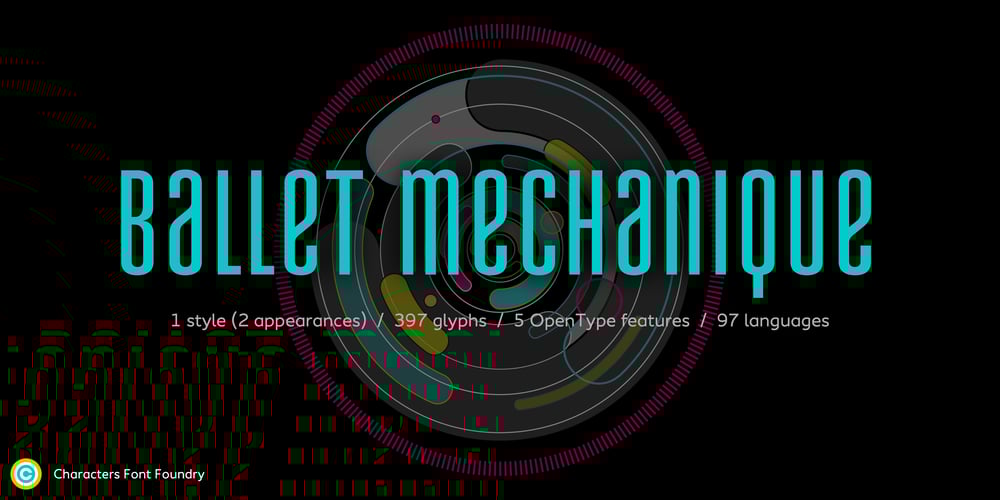
Ballet Mechanique Font Family was designed by René Verkaart and published by Characters Font Foundry. Ballet Mechanique contains 1 styles and family package options. Ballet Mechanique is a custom designed font for musician Jeroen Borrenbergs, aka Ballet Mechanique. For his upcoming record releases Jeroen asked me to create a special font for him. As co-founder and graphic designer at Stoere Binken Design he creates his own artwork and therefor had very specific wishes. The font should be warm, soft and have soul. He gave me some sketches for his logo that I should use as a starting point. The result is a very narrow, kind of techno, monocased font called “Ballet Mechanique” (what else). After having served his purpose, Jeroen Borrenbergs allowed his font to be sold publicly. Jeroen Borrenberg’s debut work, in 1996, received hugely praising reviews. Muzik Magazine made Evolutionary Entities techno single of the month, Laurent Garnier and Mister C constantly played it in their sets and Morgan Geist just said “I won’t do a review here – let me just encourage all of y’all to listen to and/or pick up the new Eevolute 12″. Beautiful stuff – complex, melodic, soaked in just enough reverb to take it to another room. Check or regret.”